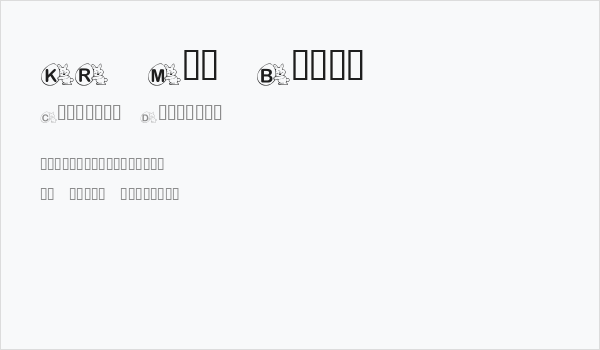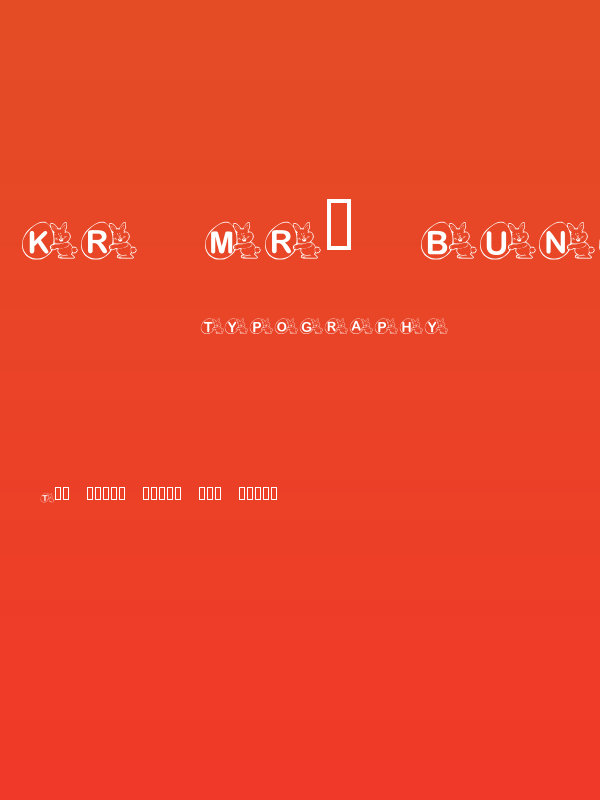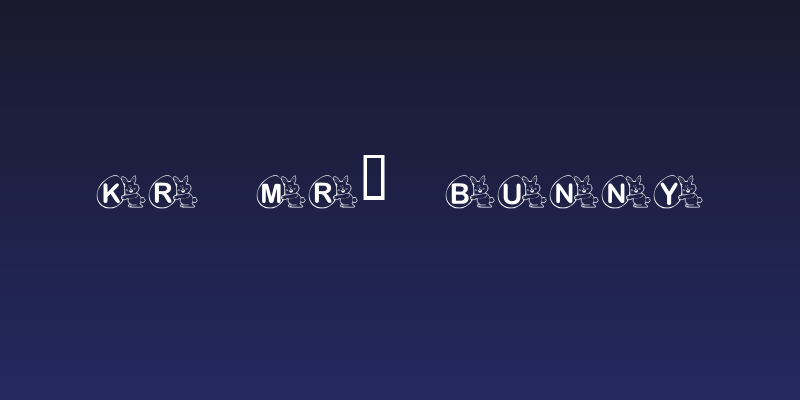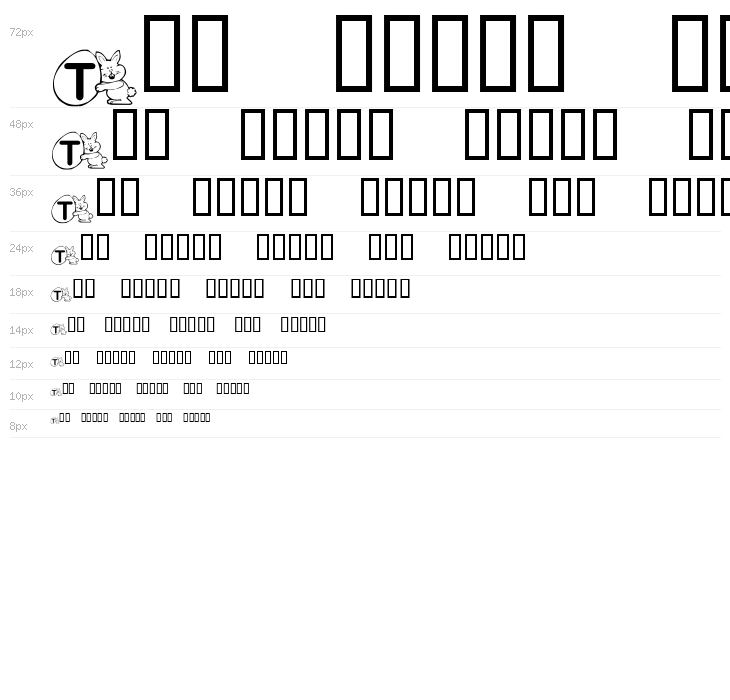
KR Mr. Bunny Font
KR Mr. Bunny Description
This playful and whimsical font features each letter encased in a circular border with a charming bunny illustration beside it. The letters are bold and clear, making them easily readable despite the decorative elements. The combination of the bold letters and the cute bunny design creates a fun and engaging visual experience, perfect for projects that require a touch of whimsy and creativity. The font maintains a consistent style throughout, with each character uniformly designed to ensure visual harmony.
| Use Case | Headlines, Logos, Decorative text |
| Proposed Projects | Ideal for children's books, playful invitations, Easter-themed designs, and any project needing a fun and whimsical touch. |